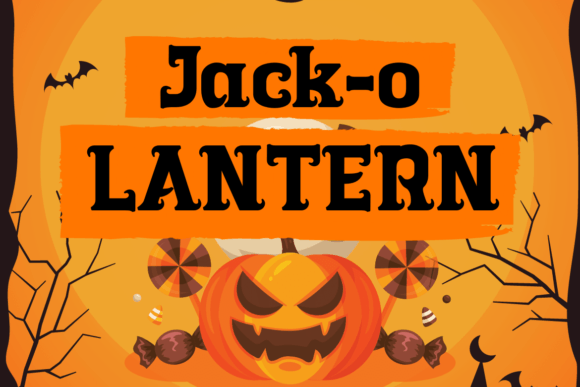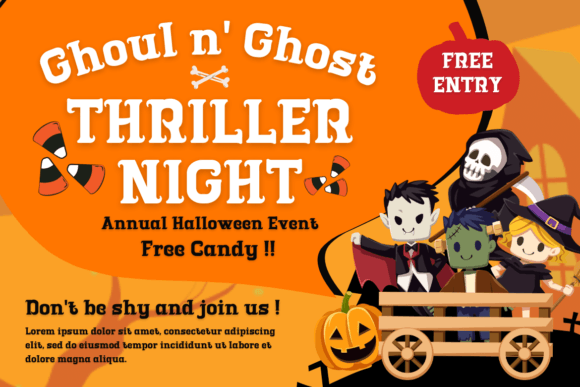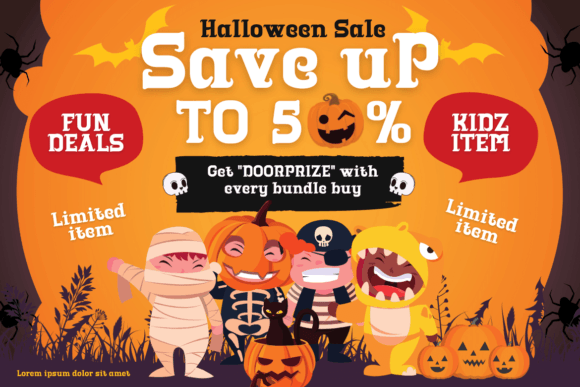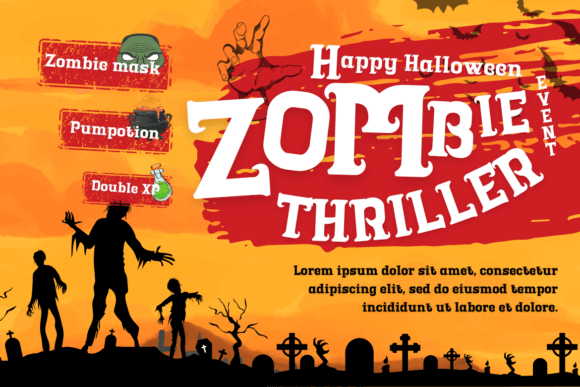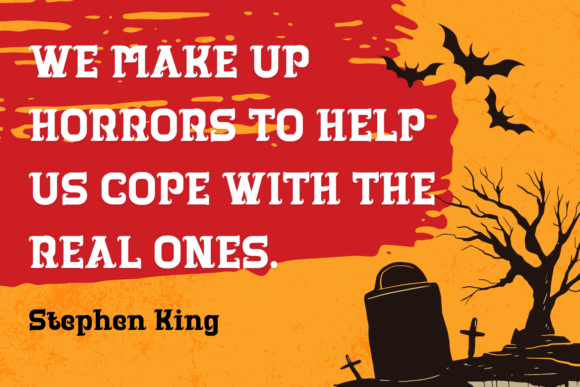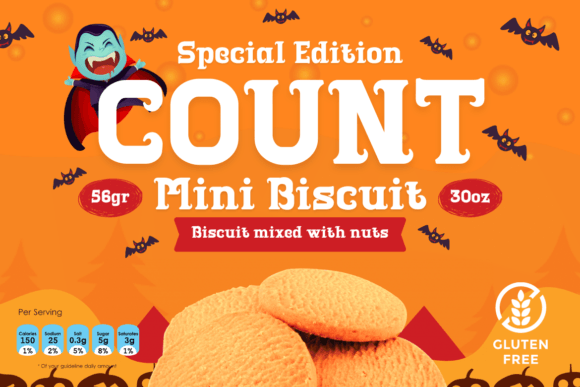
Introduction to Kinuhi Font
Introducing a serif font named Kinuhi.
What can you do with a font like this With a simple line of code and some creativity, you can make it the centerpiece of your next snowboarding gear or create a cool logo for your design agency.
Key Features of Kinuhi Font
Why Choose Kinuhi Font?
Kinuhi Font offers exceptional quality and versatility, making it a valuable addition to your design toolkit. Whether you’re creating for personal projects or commercial use, Kinuhi Font delivers professional results.